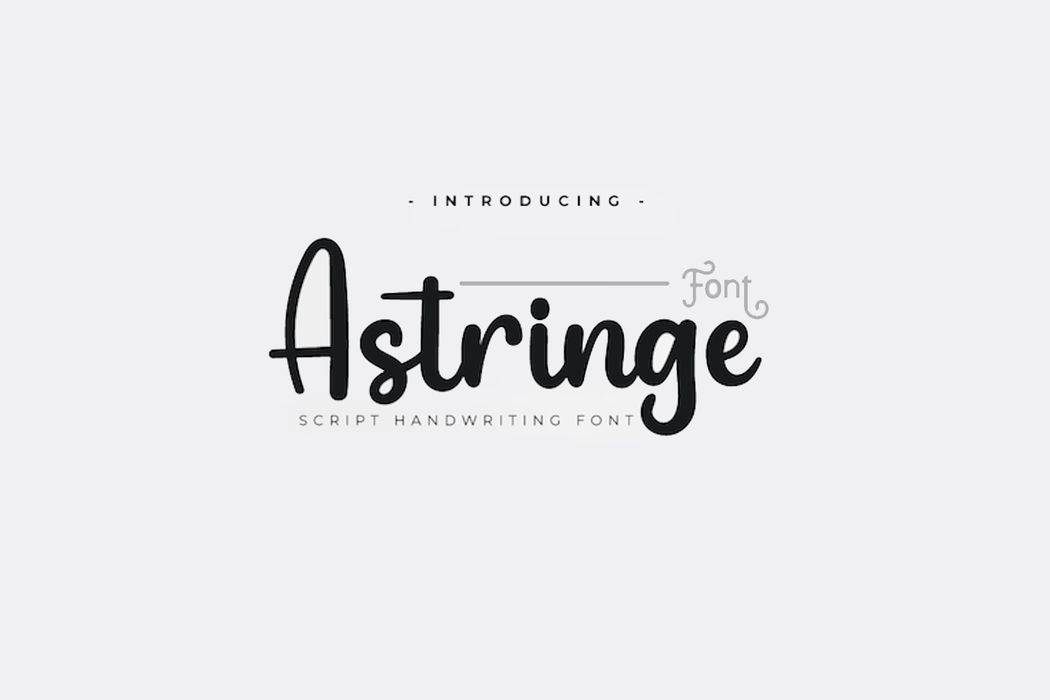
Astringe is a playful, hand-lettered script font with a casual and friendly vibe, featuring tall, narrow letterforms and smooth, rounded strokes. Its distinct mix of uppercase and lowercase styles adds a dynamic and personal touch, making it ideal for creative projects, branding, invitations, and social media. This font works well where a warm, approachable, and artistic feel is desired.
Astringe Font
About Astringe Font